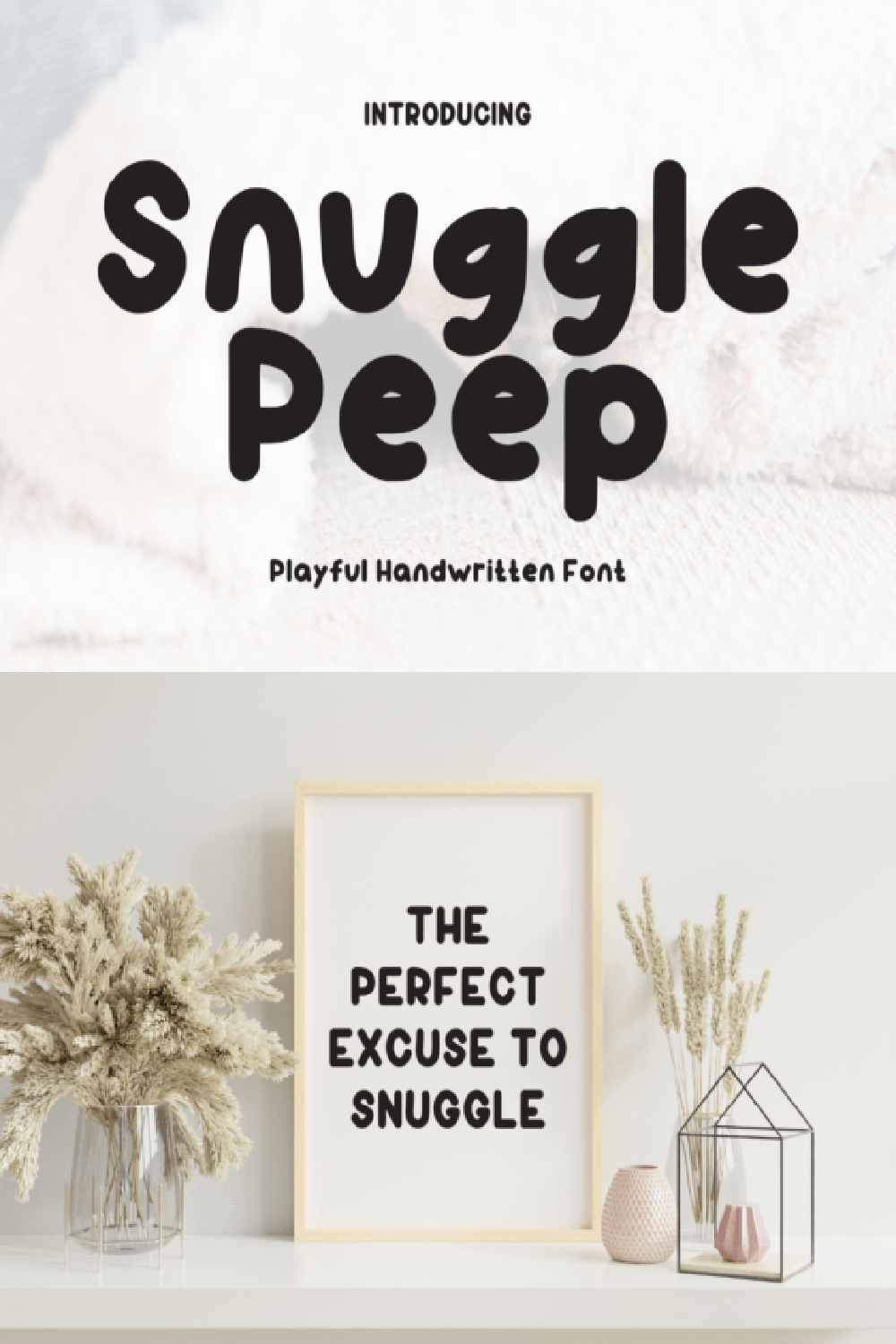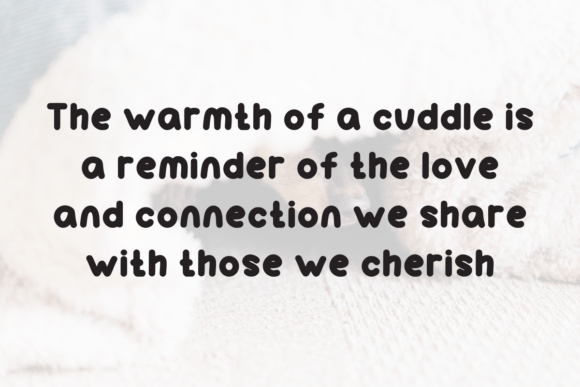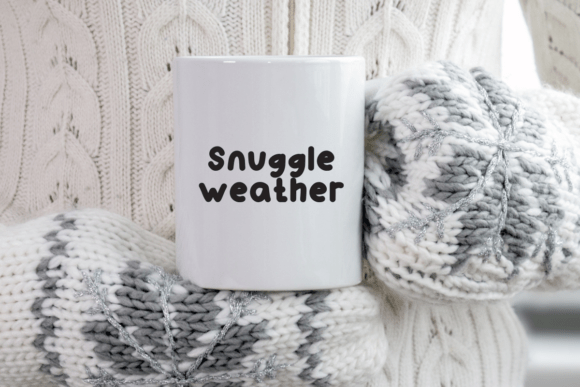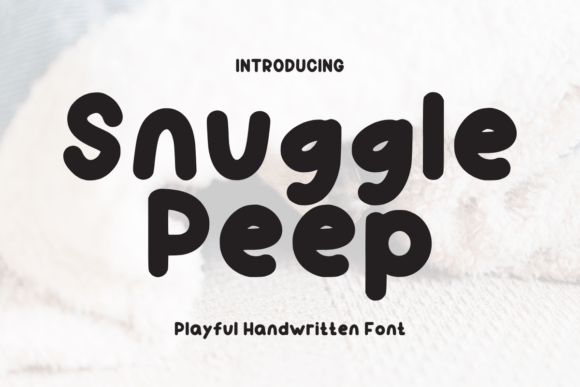
Snuggle Peep Font
About the Snuggle Peep Font
Crafted with precision, the Snuggle Peep Font is ready to bring your ideas to life. Snuggle Peep is a playful handwritten font that’s perfect for crafts, planners, KDP, stickers, greeting cards, and more. With its cute and friendly style, it works great for Cricut, sublimation, and creative DIY projects. Ideal for crafters, designers, and makers!